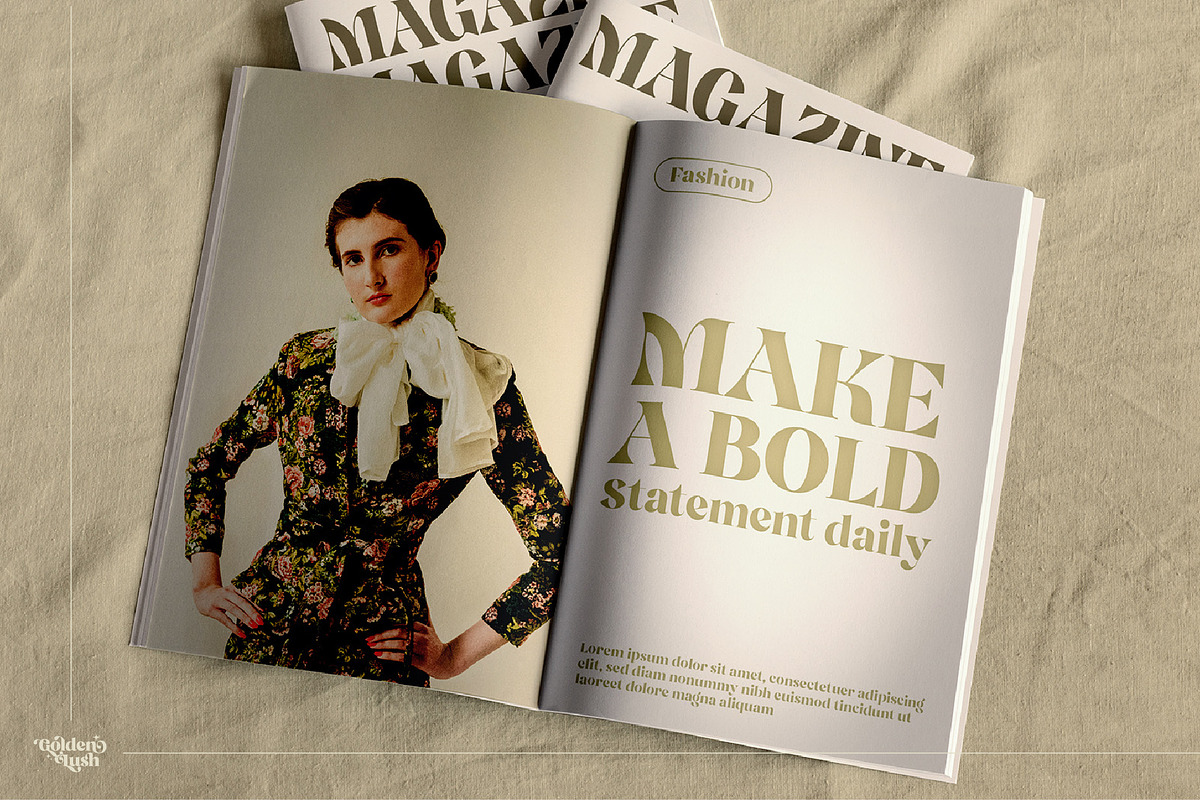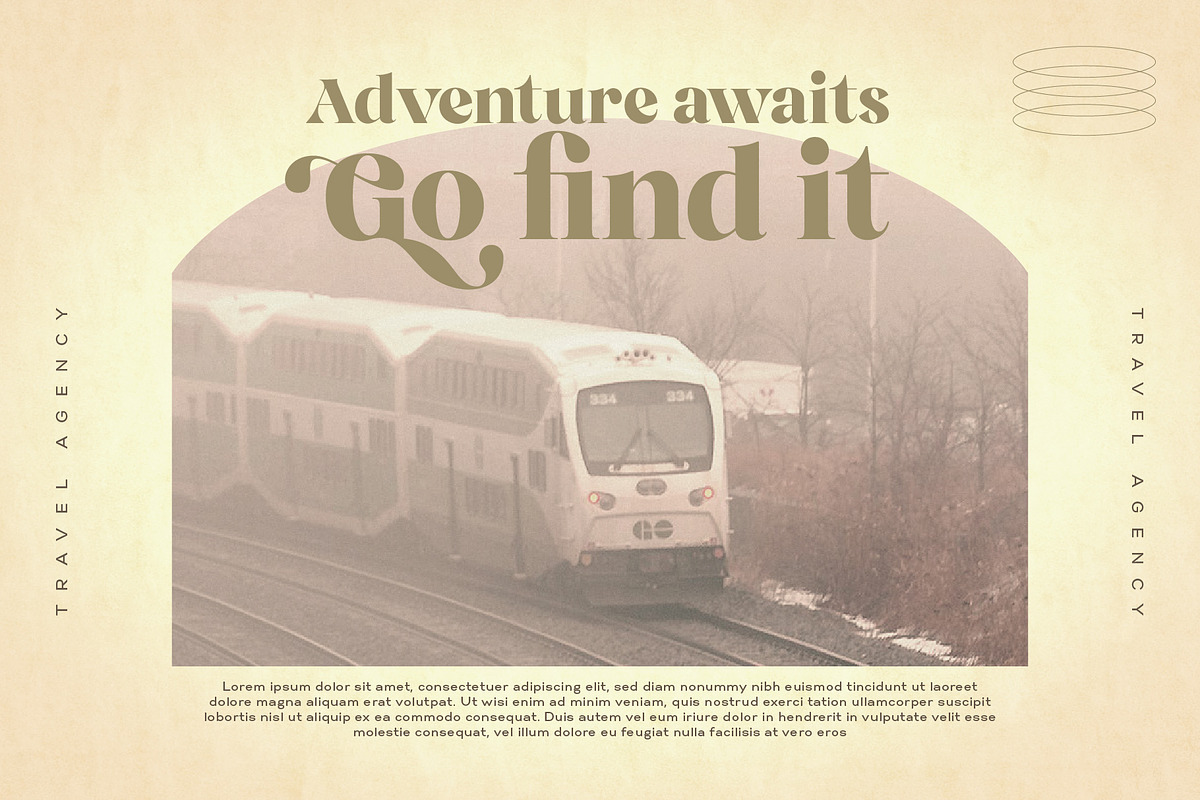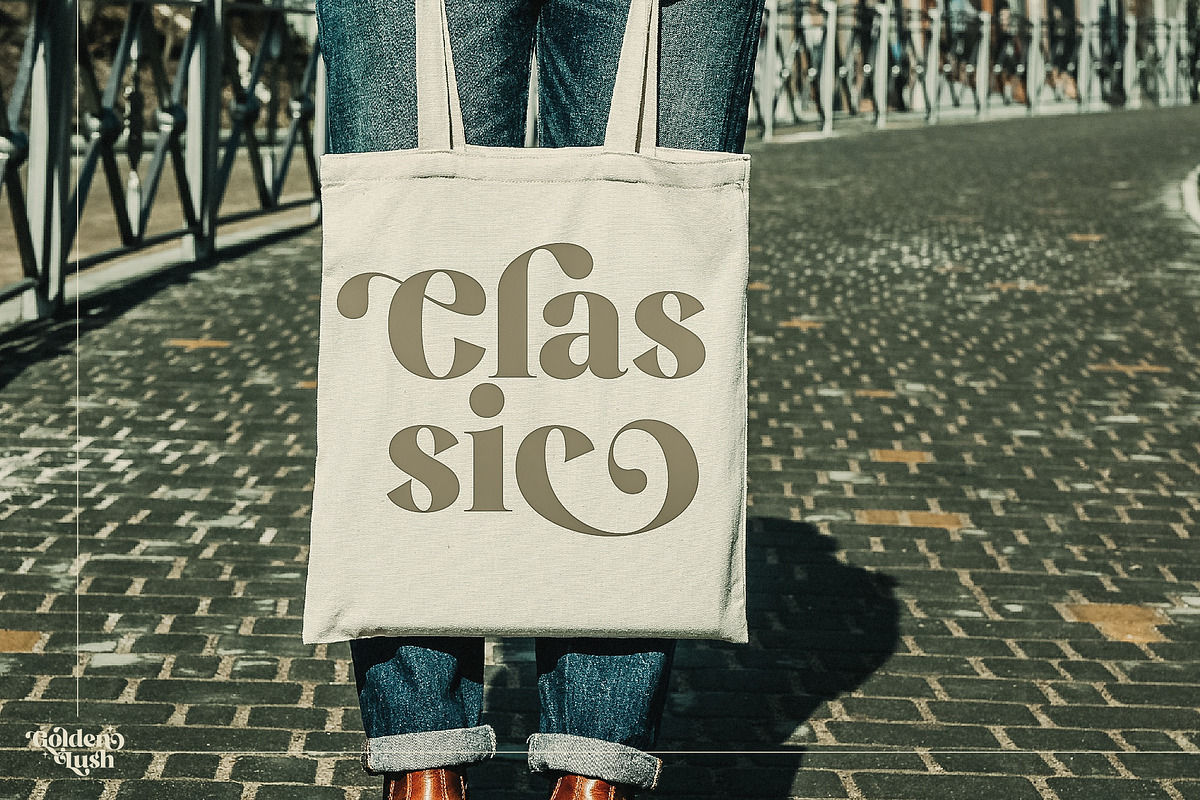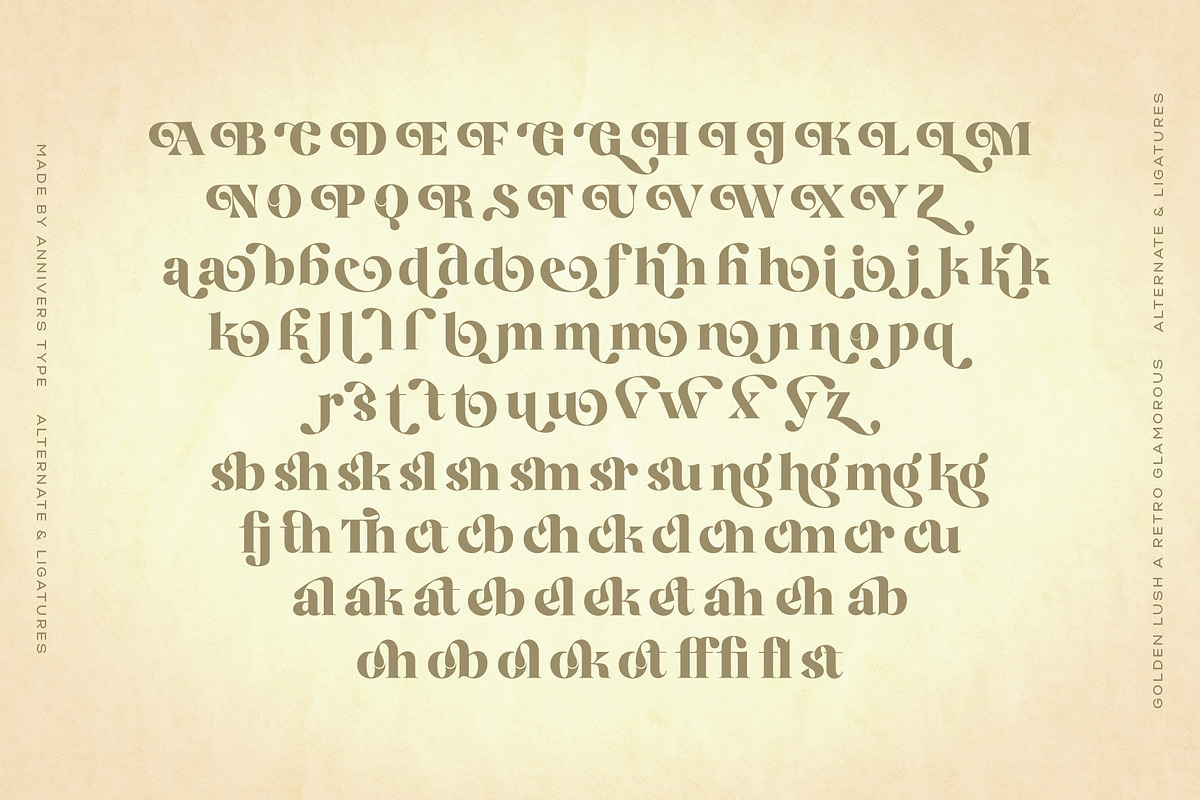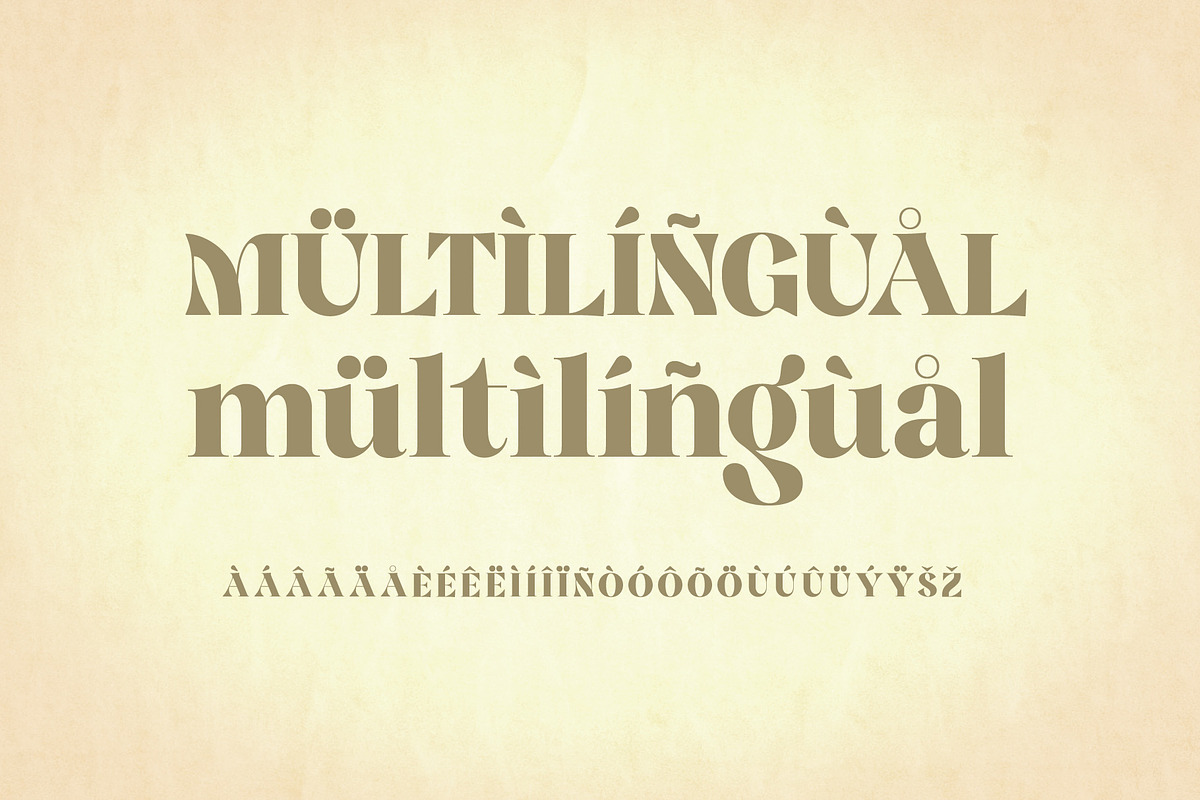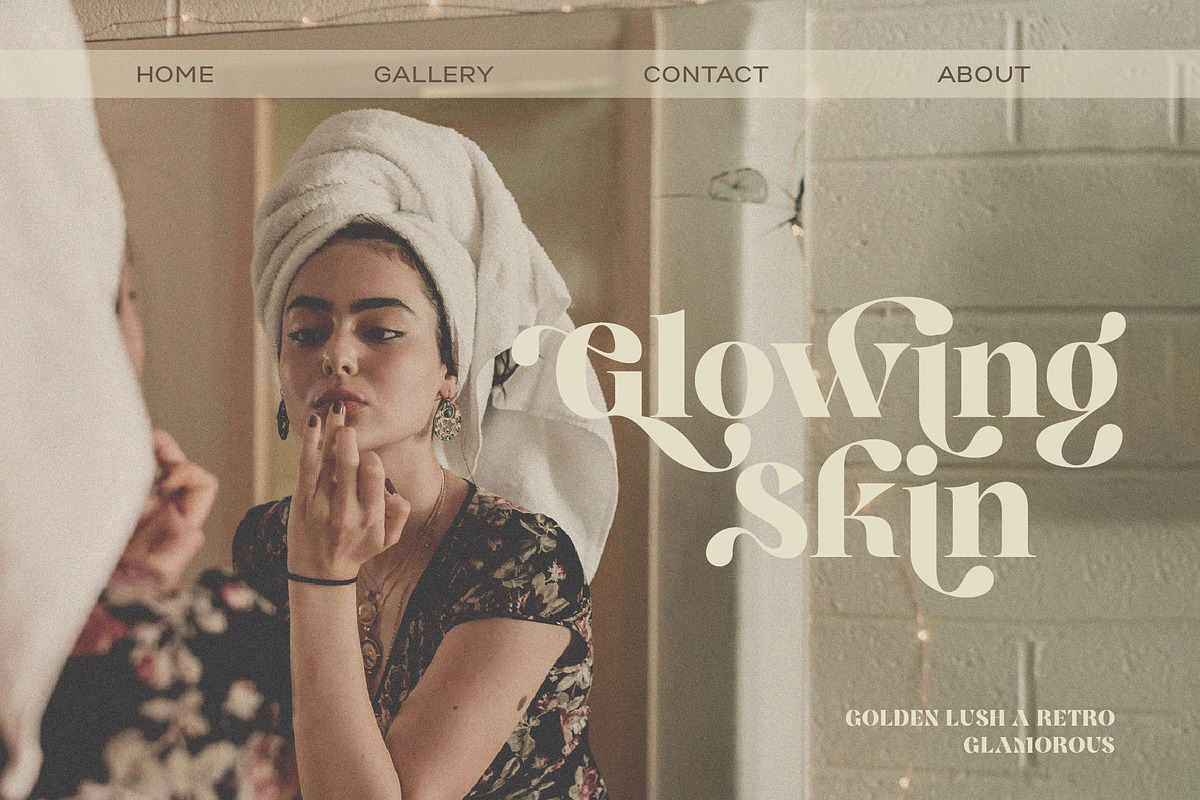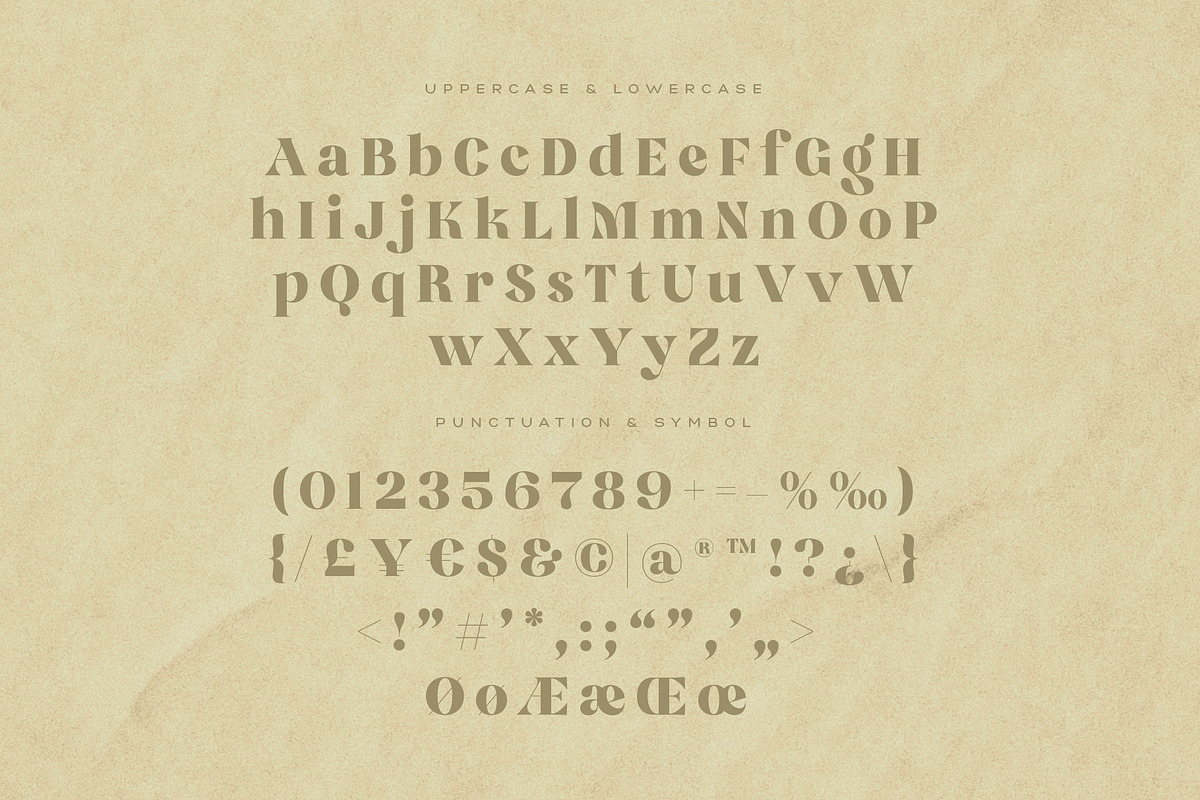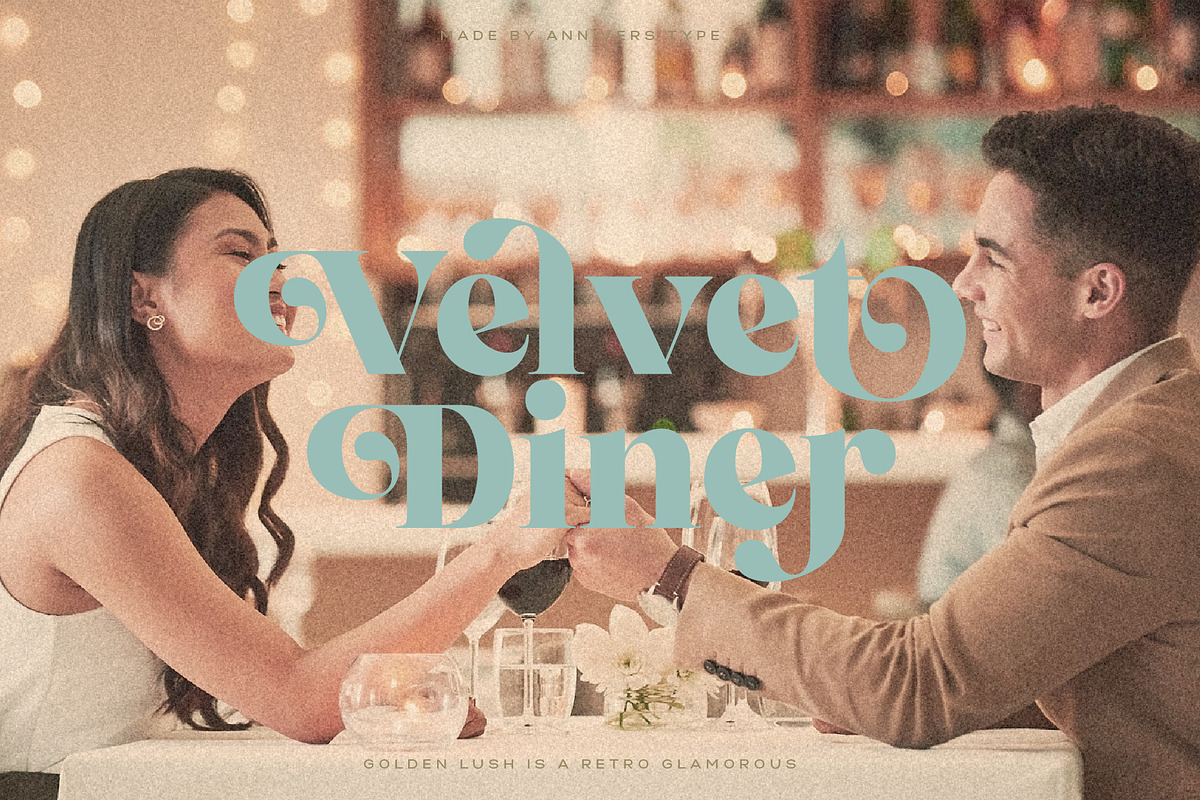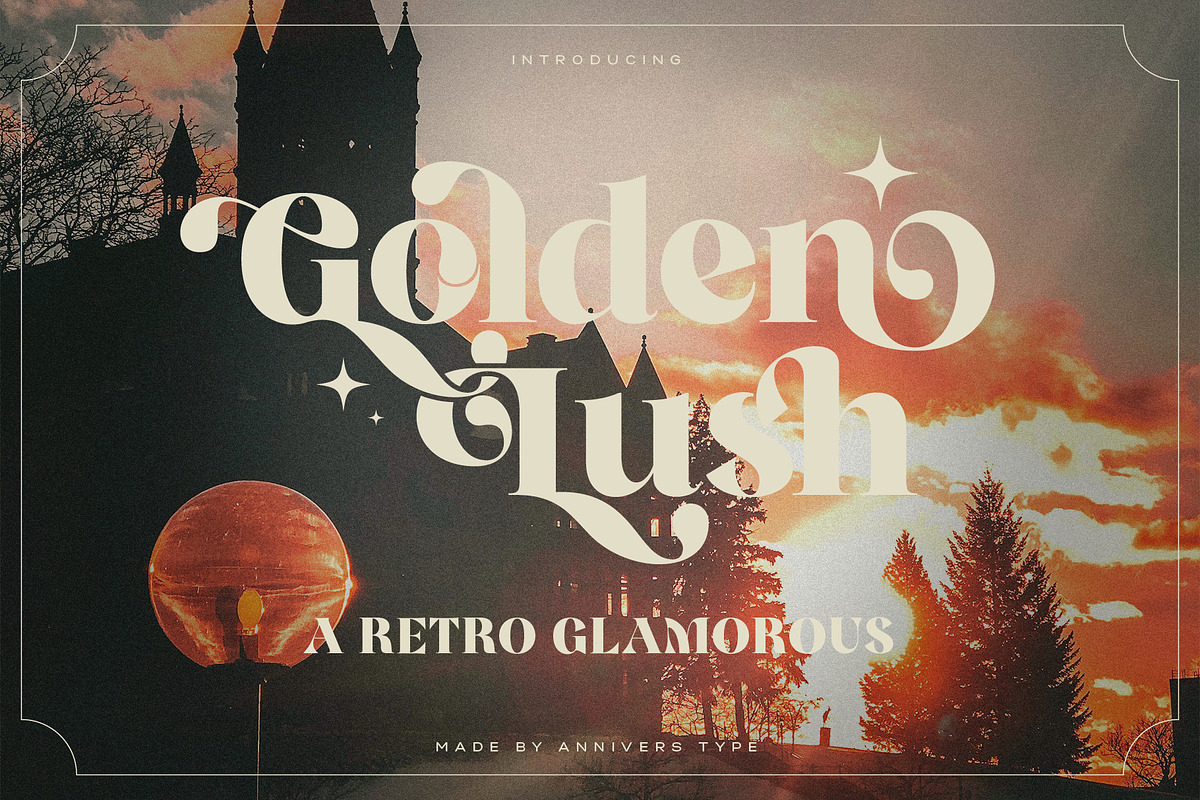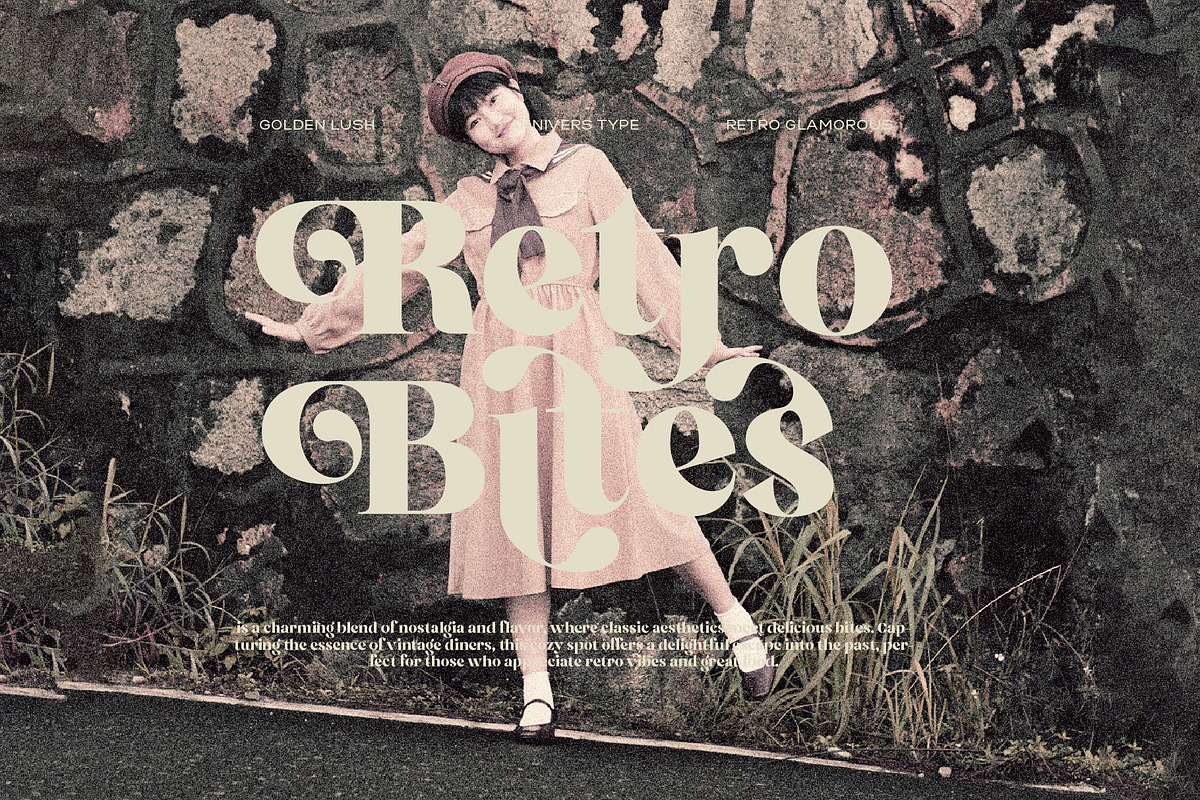
Golden Lush a Retro Glamorous
Golden Lush is a retro glamorous font inspired by the iconic typography of the 70s, embodying a daring, glamorous, and elegant personality. With thick curves and dynamic letterforms, this typeface brings a touch of luxurious vintage charm, seamlessly blending the golden era’s timeless appeal with a modern twist.
Inspired by Classic Elegance & Retro Luxury Born from a passion for retro design, classic fashion, and iconic neon signage, Golden Lush captures the essence of Hollywood glamour, vintage movie posters, and high-fashion editorials. It’s the perfect choice for anyone looking to infuse their designs with a stylish, nostalgic aesthetic that radiates sophistication.
- uppercase and lowercase
- numerals and punctuation
- OpenType features (ligatures and alternates)